10 Best Masculine Fonts For Manly and Strong Design
Best Masculine Fonts
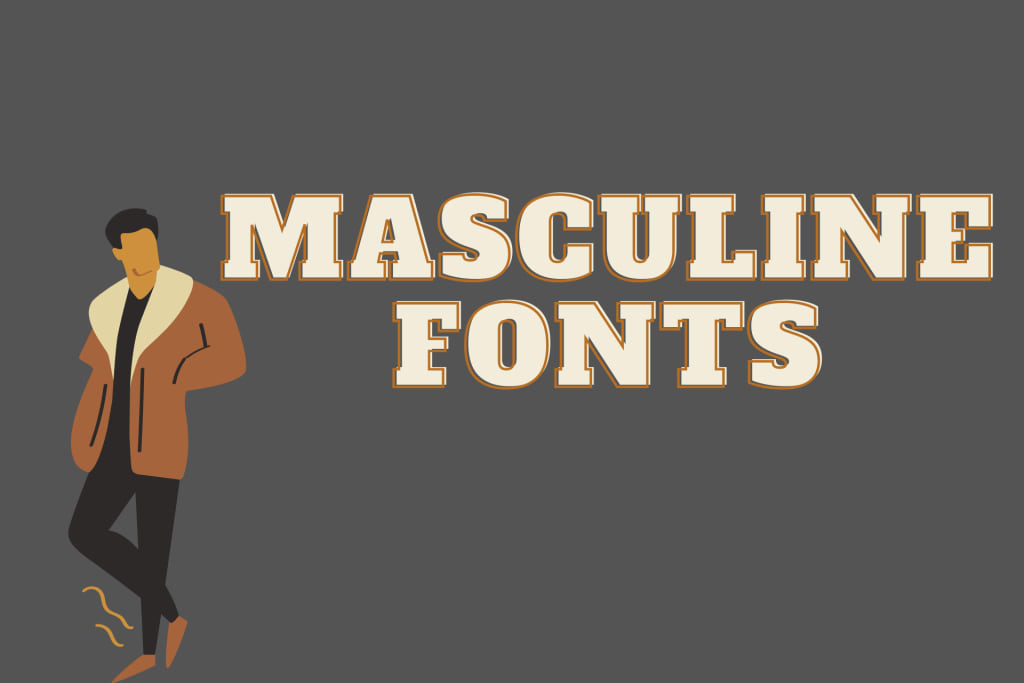
If you think that a design with a strong theme and character only comes from choosing a color palette and style, then you are wrong. Masculine fonts are here to give each template a strong impression with a bold, formal, and professional feel. Not only that, but font design also has a big influence on brand identity.
Masculine Fonts for Manly and Strong Design
We can’t deny that this strong masculine font is synonymous with men. Usually, designs that use similar fonts will tend to introduce men’s apparel products or brands whose target market is mostly men.
1. Highlight
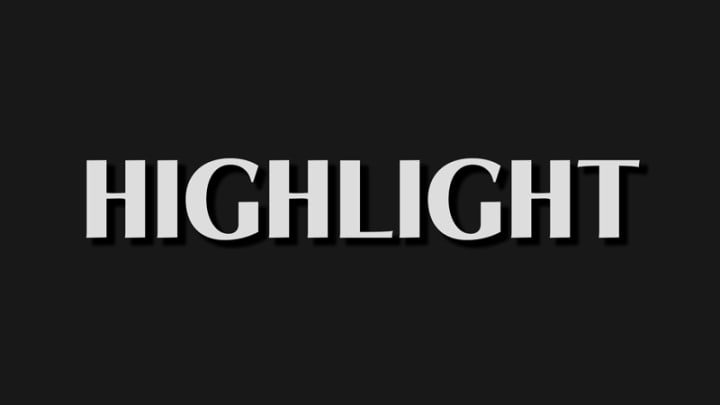
A design with a simple but elegant look while still emphasizing a mysterious feel, will match this font from Highlight. The letters look semi-bold but don’t seem too big and exaggerated.
This font from Highlight is suitable for display for apparel, logos, and headlines. The highlight of this font also doesn’t take away from the professional impression, so it’s suitable for designs with formal themes.
2. Couture
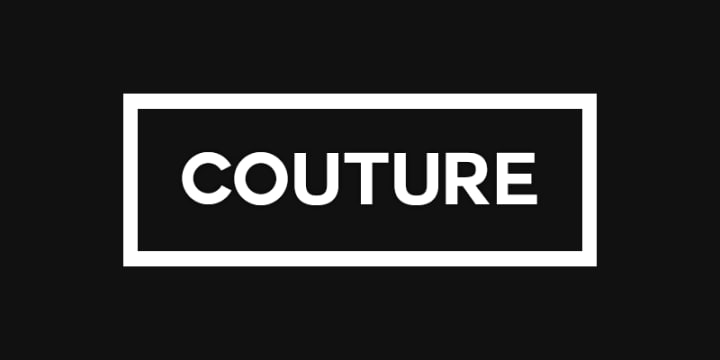
At first glance, it almost looks simple and the same as the previous font, but this font from Couture is a Sans Serif font type. It has a simple and standard impression, but if you pay attention to the details of selecting letters with precise curves, it gives a neat impression.
3. Backcountry
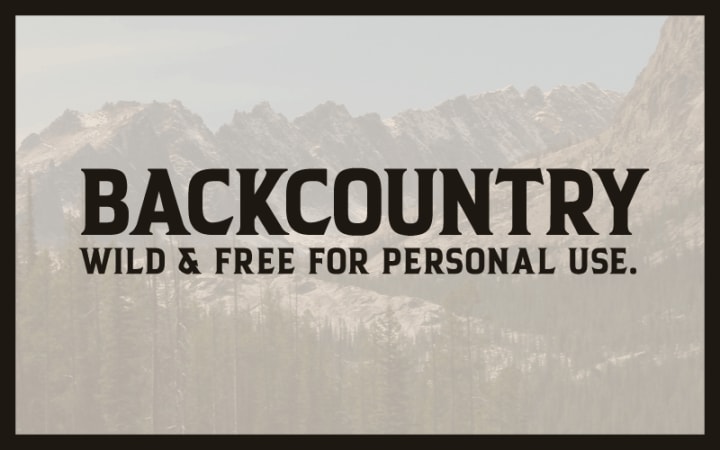
Backcountry is one of the characteristics of masculine fonts is usually found in products related to hobbies. For example, sports products such as sports equipment, jersey, and mountain climbing equipment. These fonts from Backcountry might be the best reference for those of you who like manly and sporty nuances.
4. Blacklisted
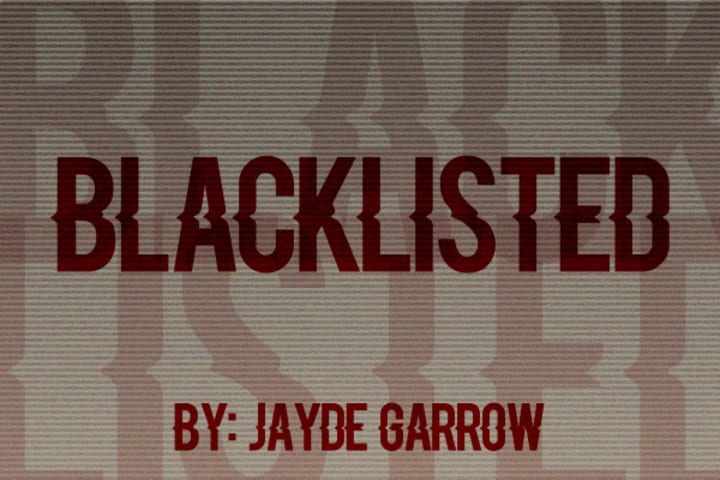
If you are interested in bold fonts but still have a characterful style, then these masculine fonts from Blacklisted. In general, bold fonts like this give a firm and manly impression. So this font is also suitable to complement masculine designs.
5. Coutline
If you are bored with the same type of fonts all the time? This collection of fonts from Coutline might be on your purchase list.
6. Old School United
Some people like designs with strong themes that also give off a youthful impression. Fonts like Old School United are often found in school or college designs. Fonts like these have been around for a long time, and now using them makes your designs look vintage and quirky.
7. Night of The Hunter
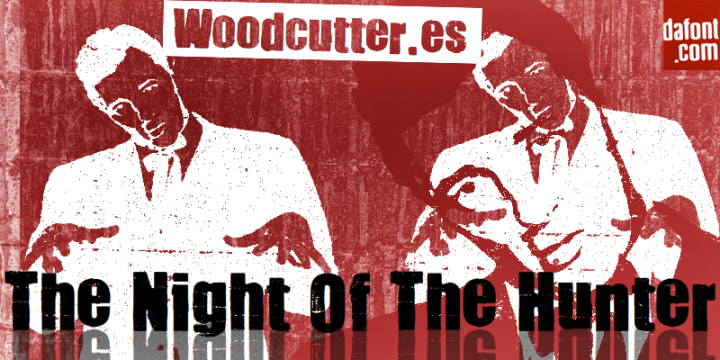
Who says that masculine design must always be neat and standard? Of course, you often find manly designs that come from templates with a slightly rebellious look.
8. Connecticut
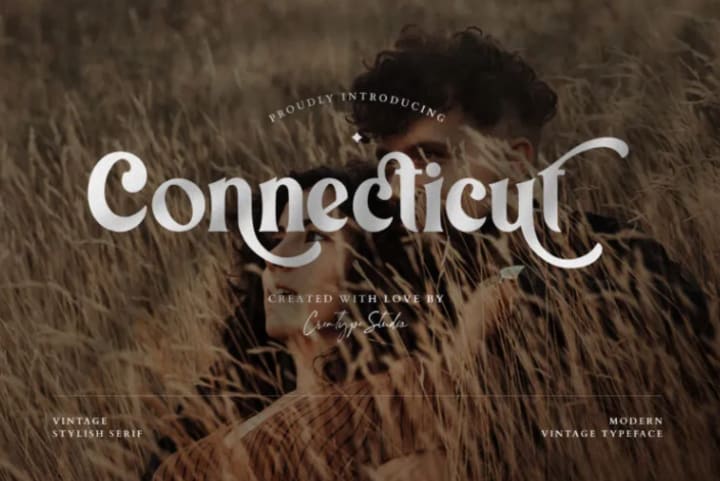
9. Dream Orphans
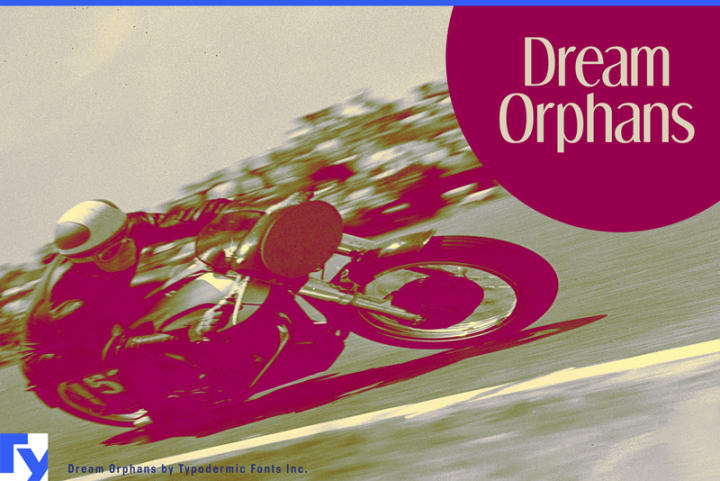
Everything related to sports is perhaps more synonymous with men than women. But of course, sport does not rule out certain genders. Therefore, the Dream Orphans Font comes with a neat, masculine but also aesthetic appearance at the same time. Therefore, this font is suitable for you to put in a sporty and natural design.
10. Crocky
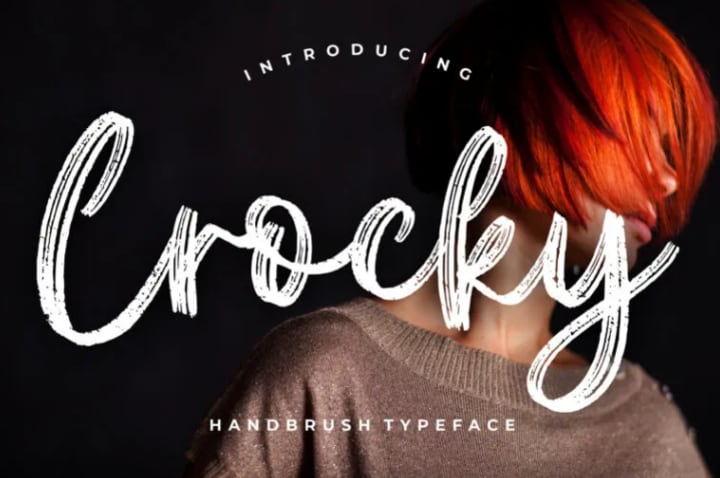
The best masculine font is about the art of beauty behind the basic letters of the alphabet. Seeing this font from Crocky makes us realize that a typical brush font like this can give a manly impression too. The semi-bold curve of the brush makes for a strong and beautiful look.
Let’s Get Your Style With Masculine Fonts!
Have you found a font that can represent your brand and design? Some of the font examples are suitable to complement your strong design. On the other hand, choosing a font is indeed a crucial moment, because these letters will also become the characteristics of a brand. The font you choose can also define your brand and style.